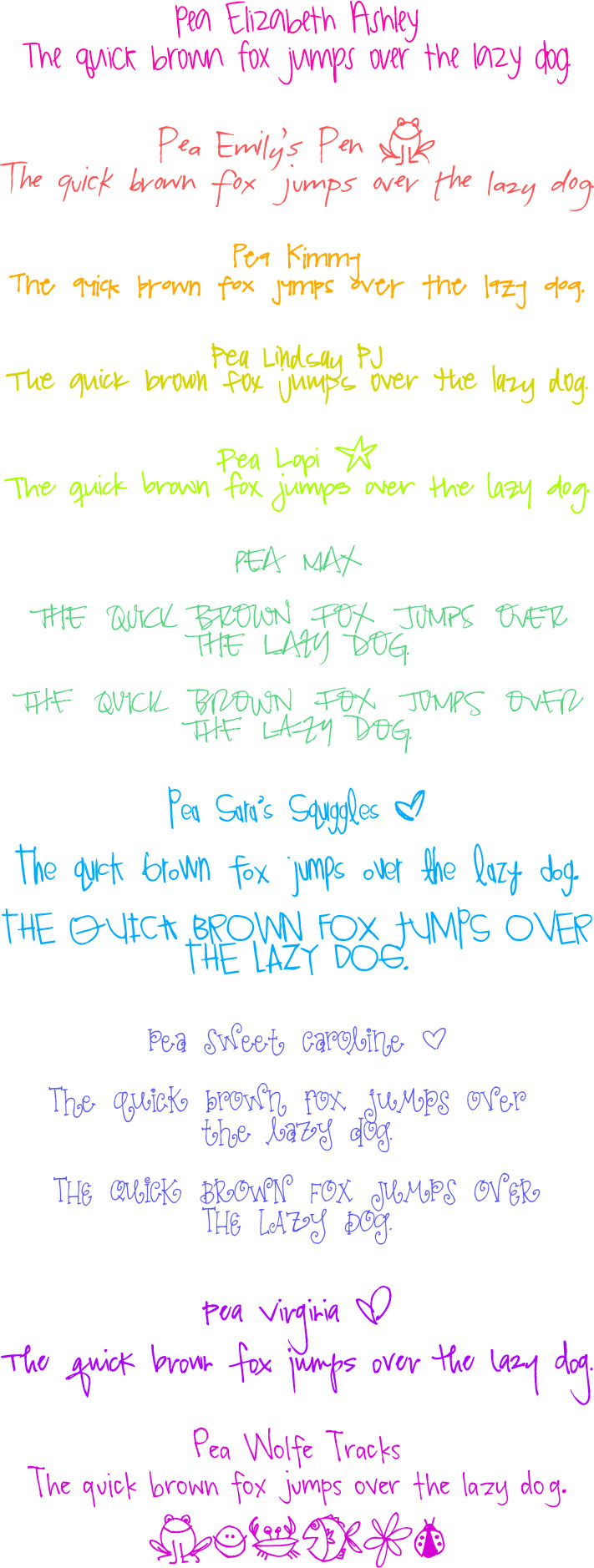
Hi friends!! I just posted 15 brand new free handwriting fonts for you today over on the Fonts for Peas section of Kevin and Amanda. Did you know there are are over 600 free and unique handwriting fonts available to download all made from your submitted handwriting samples??! :)
I have some super fun ones to share today! Some even look completely different and totally awesome when you type with them using ALL CAPS. So you’re basically getting two fun fonts in one! :)